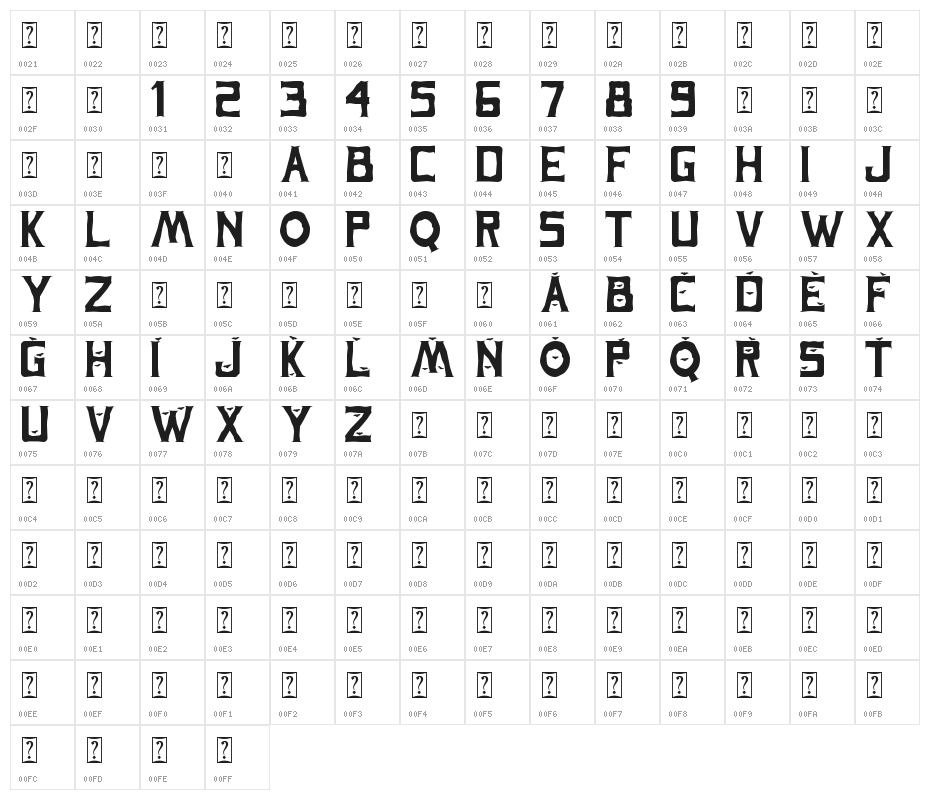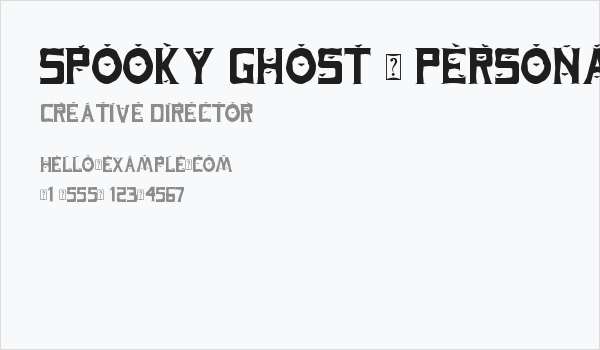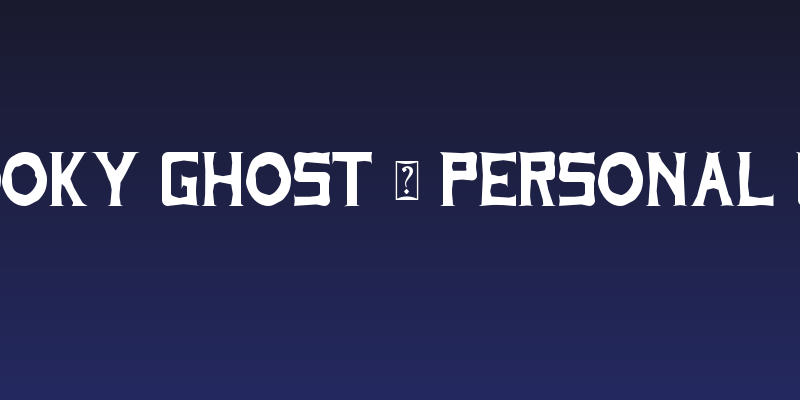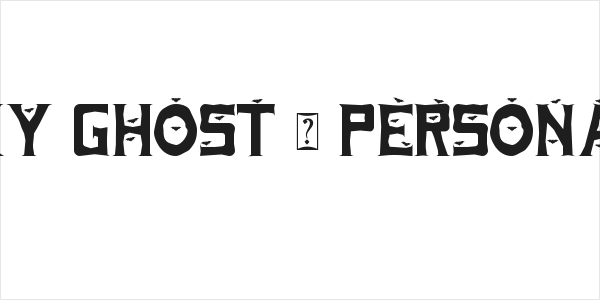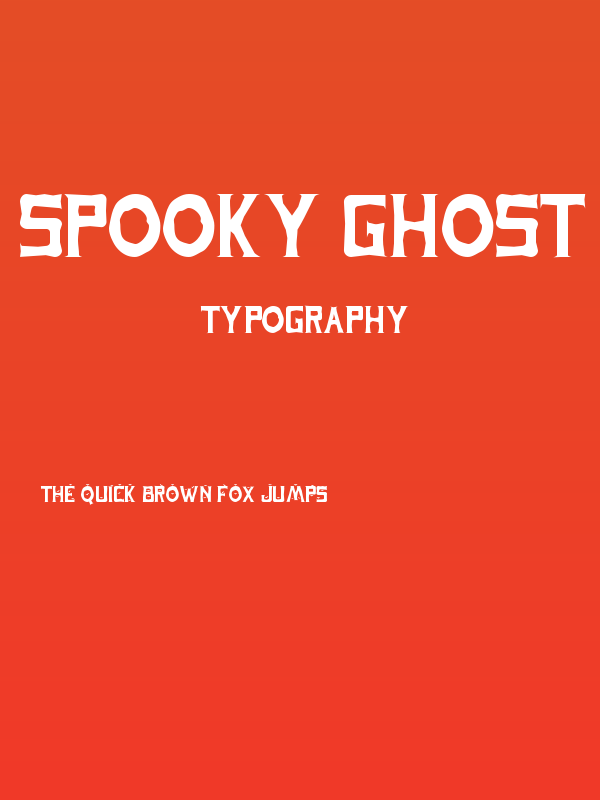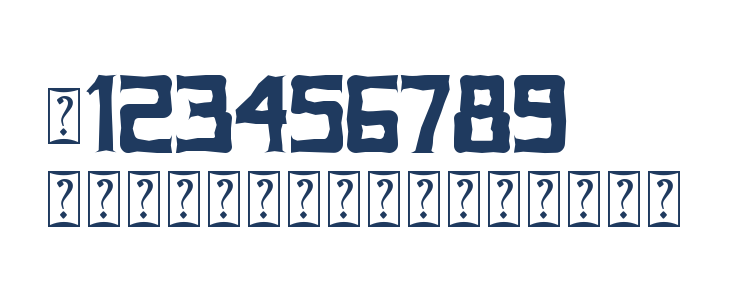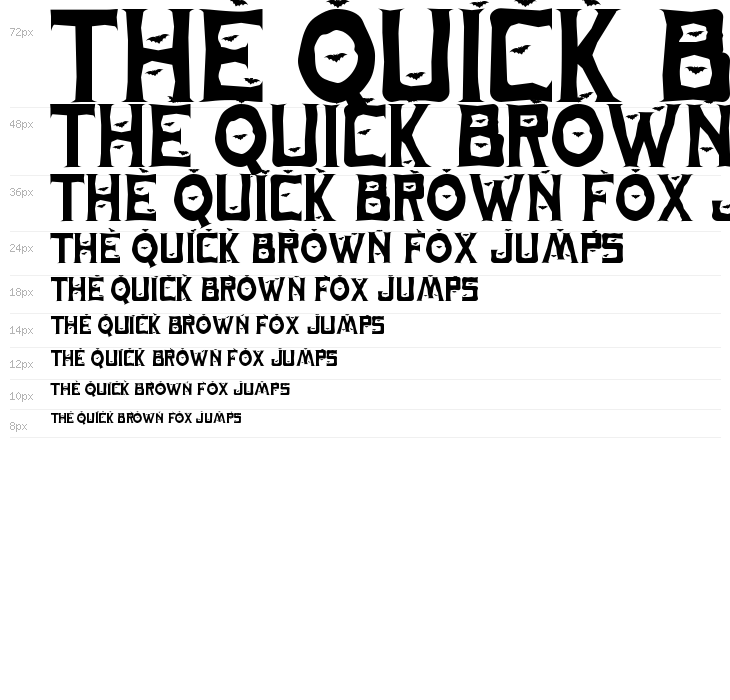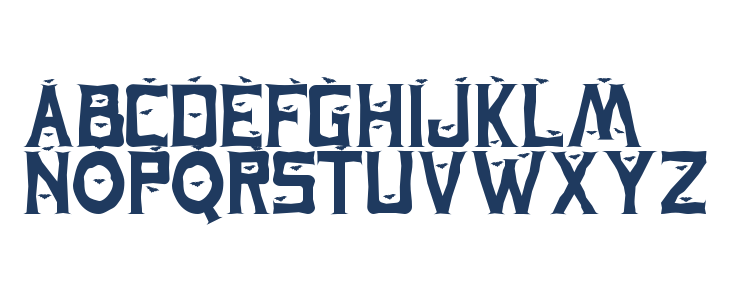
Spooky Ghost - Personal Use Font
Spooky Ghost - Personal Use Description
This font features a spooky, ghostly aesthetic with jagged, irregular edges that give it a haunted, eerie vibe. The characters are bold and slightly distorted, resembling shadows or silhouettes. The uppercase and lowercase letters maintain a consistent style, with sharp angles and uneven lines that evoke a sense of mystery and the supernatural. The numbers and special characters follow the same theme, enhancing the overall haunted appearance. This font is perfect for Halloween-themed projects or anything requiring a touch of the macabre.
| Proposed Projects | Ideal for Halloween invitations, horror movie posters, haunted house flyers, or spooky-themed merchandise. |